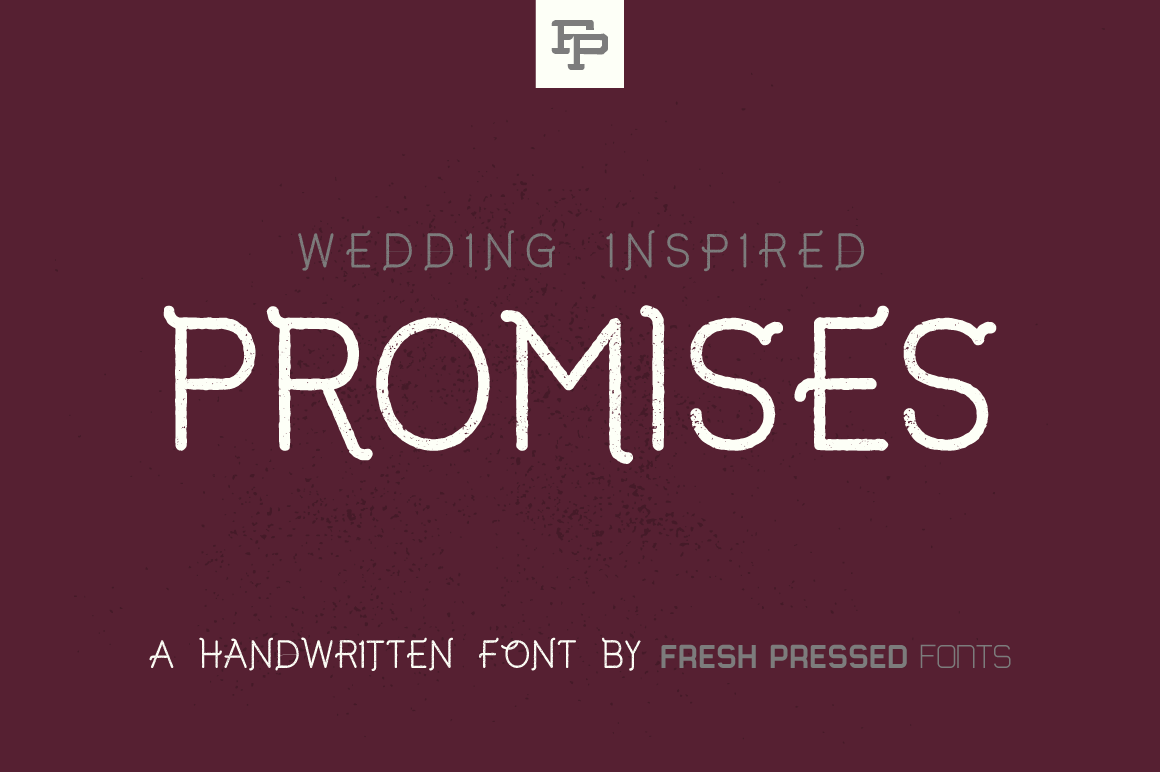
Promises Display Font
Promises is a display typeface from Fresh Pressed Fonts!
Promises was originally a handwritten font that was created for wedding invitations. FPF decided to create a full typeface from those original letters. It has a distressed appearance, and is perfect for any design that calls for a soft yet distinct display font.
This is an uppercase and lowercase font with 200+ glyphs and international language support. Uppercase and lowercase letters each have a slight variation, so when designing with Promises you can mix and match quickly to get your desired look!